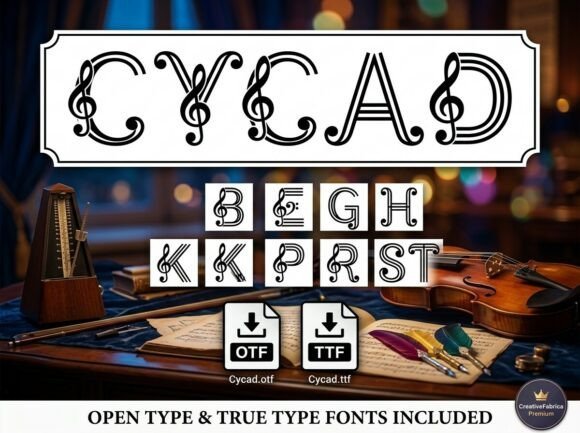
Strike a Chord with Your Design
Have you ever been captivated by the beauty of a well-designed concert poster or the elegant typography on a music academy logo? For designers looking to create harmonious and sophisticated designs, the key to success lies in the right font. That’s where Cycad Font comes in – a display typeface that embodies the essence of music and art.
With its unique blend of treble clefs and musical staff patterns, Cycad Font is the perfect choice for designers who want to add a touch of sophistication and elegance to their work. Whether you’re creating a logo for an independent orchestra or designing a social media header, Cycad Font’s rhythmic and parallel-line construction is sure to captivate your audience.
Cycad Font Key Features
- Unique Characteristics: Cycad Font features a distinctive, hand-drawn design with intricate details and organic shapes, making it perfect for creating unique and eye-catching typography.
- Kerning and Ligatures: Cycad Font includes advanced kerning and ligature pairs, ensuring that text sets appear smooth and professional, even at small font sizes.
Cycad Font Review
I recently had the chance to work with the Cycad font, and I must say it’s a mixed bag. On the one hand, there are some things that work really well.
- Unique aesthetic: Cycad has a distinct, retro-futuristic feel that can add a lot of character to your design.
- Good legibility: Despite its unusual style, the font is surprisingly easy to read, even at smaller sizes.
- Wide range of weights: Cycad comes in a variety of weights, from light to bold, which gives you a lot of flexibility when choosing the right font for your project.
- Limited language support: Cycad is only available in a few languages, which can be a problem if you need to use it for a multilingual project.
- Some letterforms are awkward: While Cycad is generally well-designed, some of the letterforms feel a bit off, which can make it harder to read in certain situations.
- No italics: Unfortunately, Cycad doesn’t come with italic versions of the font, which can make it harder to create emphasis or add visual interest to your text.
Overall impression
Cycad is a solid choice for designers who are looking for a unique, retro-futuristic font. While it has some limitations, its strengths make it worth considering for the right project. Just be aware of its limitations and plan accordingly.
Tips for Getting the Most Out of Cycad Font
Use Cycad font for titles and headings to add a touch of elegance and sophistication to your designs.
Experiment with different font sizes and styles to create visual interest and hierarchy in your design.
Combine Cycad font with other fonts to create a unique and eye-catching typographic effect.
Cycad font is ideal for:
Corporate branding and marketing materials
Editorial and magazine design
Any design project that requires a touch of sophistication and elegance
Playfair Display is an elegant serif font that is perfect for creating a luxurious and sophisticated look. It’s ideal for use in branding, magazines, and high-end advertising. Compared to Cycad Font, Playfair Display has a more formal and refined feel, making it suitable for a wider range of applications.
Great Vibes is a beautiful, handwritten font that adds a touch of whimsy and personality to any design. It’s perfect for use in social media, advertising, and packaging design. Compared to Cycad Font, Great Vibes has a more casual and relaxed feel, making it suitable for a more laid-back audience.